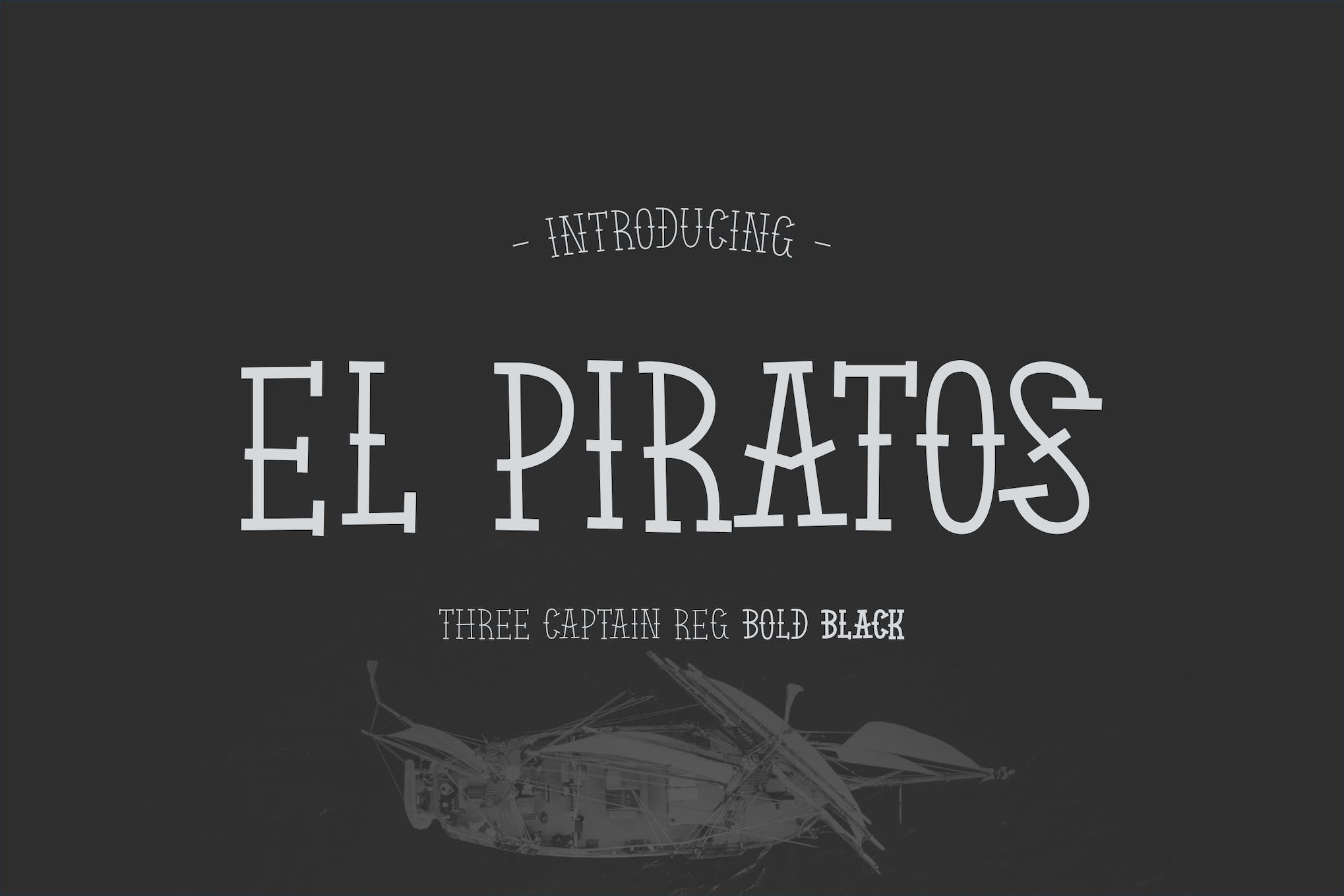
Pirates Dingbat Icons
Pirates Dingbat Icons are a vibrant asset featuring 62 simple pirate-themed doodle icons. Suitable for various projects, these icons can enhance logos, adornments, and more. They come in .TTF, .OTF, and EOT file formats, supported by Unicode and covering Basic Latin letters and numerals. Pirates Dingbat Icons add a fun twist to any creation.
Pirates Adventure Typeface
Pirates Adventure Typeface is a versatile, vintage-inspired display font, ideal for a multitude of projects. From headlines and insignia to wedding invitations and greeting cards, this font adds a classic touch. It offers a wide range of OpenType features including swash, stylistic sets, and ligatures, enabling the creation of appealing and harmonious designs. With 265 glyphs and support for various programs, including Adobe Illustrator and Microsoft Word, it’s a handy tool for designers.
Pirates Blue Fantasy Font
Pirates Blue Fantasy Font is a vibrant, adventure-inspired typography that instantly transports you to a world of swashbuckling pirates. Ideal for movies, games, or pirate-themed designs, it includes uppercase and lowercase characters, symbols, punctuation, numerals, ligatures, alternates, and multilingual support. The package contains OTF, TTF, WOFF, and WOFF2 file formats. It’s a highly versatile and creative font for those bold design visions.
Pirate Hunter Fantasy Style
Pirate Hunter is a whimsical, fantasy-inspired font, ideal for injecting an adventurous flair into your pirate-themed designs, be it for films, games, or otherwise. With uppercase, lowercase, numerals, and symbols included, along with multiple file format support (OTF, TTF, WOFF, WOFF2), it’s versatile and multilingual. Its unique ligatures and alternates only enhance its creative appeal.
Pirate Master Display Font
Embark on a design adventure with the “Pirate Master” display font. Its uniquely rugged letterforms exude maritime mystery, ideal for pirate-themed artwork, branding, and more. The finely crafted characters amplify the thrill in your projects, be it party invitations, game titles or logos. With “Pirate Master”, you also get uppercase and lowercase letters, symbols, numerals, ligatures, alternates, and multilingual support.
Rosamone Pirates Typeface
The Rosamone Pirates Typeface is an adventure-inspired pirate fantasy font that can enhance any project with its flashy charm. Ideal for use in movie, game, or pirate-themed designs, it comes complete with uppercase, lowercase, symbols, punctuation, numerals, ligatures, alternates, and multilingual support. The files included are in OTF, TTF, WOFF, and WOFF2 format.
Pirate Vintage Style Font
Discover the Pirate Vintage Style Font, a unique custom serif font perfect for giving a retro or vintage feel to your work. This creative asset offers six distinct styles: regular, grunge, inline grunge, shadow, and shadow grunge, each evoking an old-world charm. Add flair to your designs with this third-party font, it’s real treasure!
Pirate Wannabe Display Font
The Pirate Wannabe Display Font is a playful, eye-catching asset for creative projects. Its distinctive spurs and classic style make it perfect for children’s themed ventures, like magazines or posters. It’s compatible with PC & Mac and can be used in Adobe Illustrator, Adobe Photoshop, Adobe InDesign, and even Microsoft Word. The font includes the basic Latin alphabet, numbers, and punctuation. No additional design software is required.
Freebooter Pirate Display
Freebooter Pirate Display is a creative typeface, inspired by pirate scripts from the 1500s. Its artistic imperfections lend an authentic, human touch to your designs. Complete with both upper and lowercase letters and special characters, it’s versatile for various uses, from branding and apparel to social media, advertising, and marketing.
Jolly Roger Pirates Typeface
El Piratos Sailor Tattoo Font
Welcome to the world of El Piratos Sailor Tattoo Font! This exciting, all caps font is inspired by the old tattoo style and comes in three weights – Regular, Bold, and Black. Delightfully bouncy and full of energy, El Piratos rules the realm of rough fontography. It’s available in OTF, TTF, and WOFF formats. Ahoy typographists!